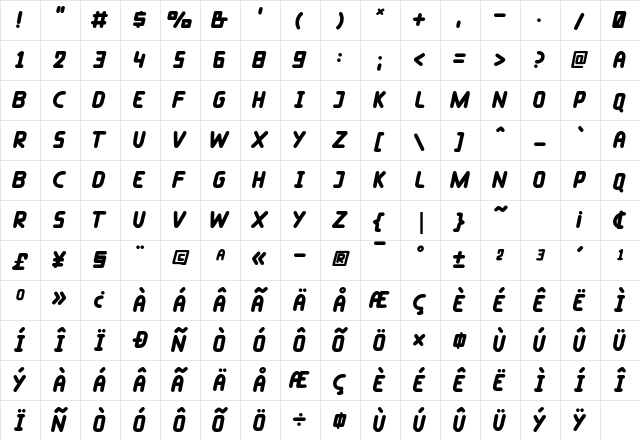
Taylorsit Regular
| Designer | Kong Font |
Taylorsit offers clean, dependable letterforms without strong stylistic allegiance, making it a practical choice for designers who need flexibility.